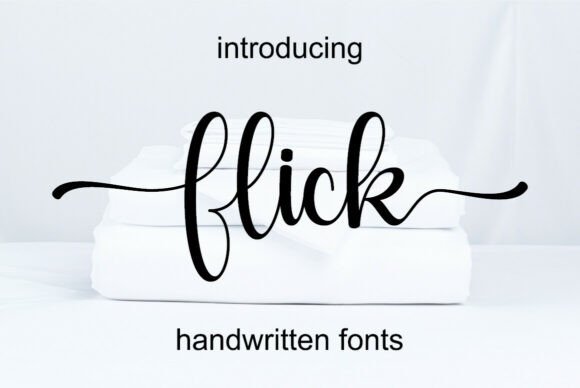
Flick Font: Elevate Your Designs with Elegance and Sophistication
In the world of typography, a well-chosen font can make all the difference in transforming a design from ordinary to extraordinary. For designers and crafters seeking to add a touch of elegance and sophistication to their projects, Flick Font is an exceptional choice. This stylish and incredibly elegant handwritten font is perfect for a variety of applications, from wedding invitations and greeting cards to logos and business cards.
The Characteristics of Flick Font
Flick Font boasts a unique, handwritten aesthetic that exudes refinement and poise. Its elegant strokes and fluid connections make it an ideal choice for designs that require a personal touch. Whether you’re creating wedding invitations, thank you cards, or quotes, Flick Font adds a level of sophistication that elevates your work.
One of the standout features of Flick Font is its versatility. It can be used for a wide range of design projects, including:
• Thank you cards and greeting cards
• Quotes and inspirational posters
• Logos and branding materials
• Business cards and letterheads
This font’s adaptability makes it a valuable addition to any designer’s toolkit, allowing you to create cohesive and visually appealing designs across various mediums.
Flick Font offers numerous benefits for designers and crafters, including:
• High-quality design: Flick Font’s elegant and sophisticated design ensures that your projects look professional and polished.
• Time-saving: With Flick Font, you can quickly create stunning designs without spending hours on typography and layout.
• Flexibility: Flick Font’s versatility allows you to use it across various design projects, making it a valuable investment for designers and crafters.
Tips for Using Flick Font
To get the most out of Flick Font, consider the following tips:
• Pair it with complementary fonts: Combine Flick Font with other fonts that complement its elegant style, such as serif or sans-serif fonts.
• Experiment with colors and textures: Add depth and interest to your designs by experimenting with different colors and textures.
• Pay attention to spacing and layout: Ensure that your design has sufficient spacing and a clear layout to allow Flick Font to shine.
Flick Font is a stylish and elegant handwritten font that can elevate your designs to new heights. Its versatility, PUA encoding, and ease of use make it an excellent choice for designers and crafters seeking to add a touch of sophistication to their projects. Whether you’re creating wedding invitations, logos, or greeting cards, Flick Font is sure to impress. With its high-quality design and flexibility, Flick Font is a valuable addition to any designer’s toolkit.